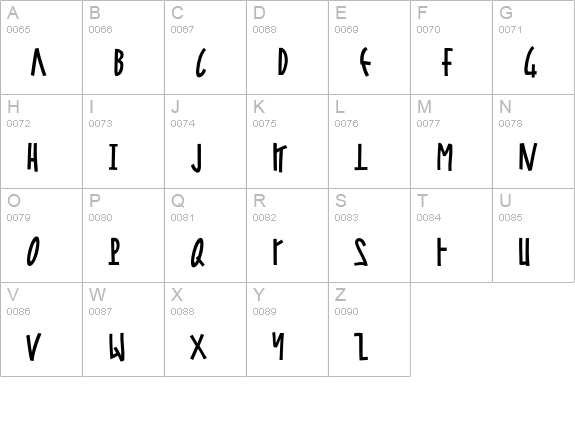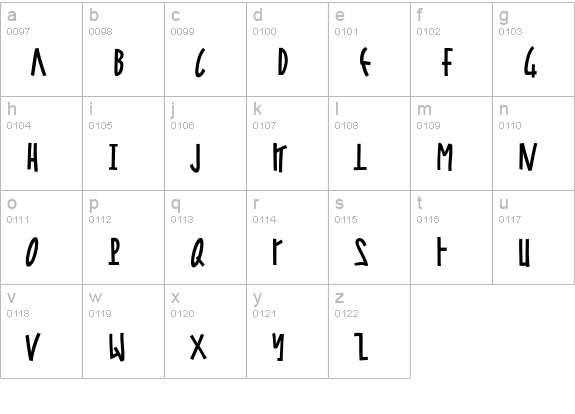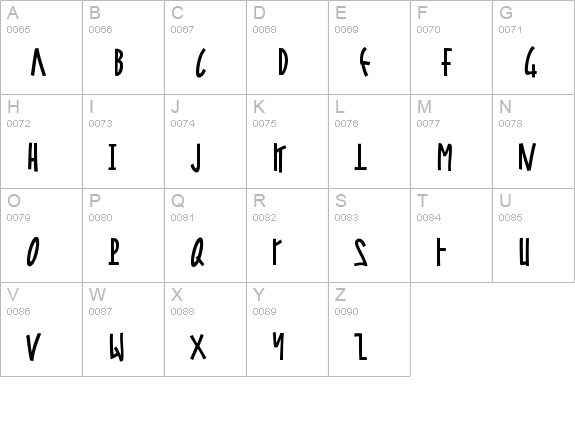
Introducing Steel-Jones, a captivating and versatile font that exudes strength and elegance. With its sleek lines and sharp edges, this typeface is perfect for adding a touch of modern sophistication to any design project. Whether you're creating a bold logo, designing a stylish website, or crafting eye-catching headlines, Steel-Jones delivers a powerful impact that demands attention. Its balanced letterforms and distinctive character set make it a timeless choice for both print and digital applications. But what sets Steel-Jones apart from the rest? Not only does it embody the essence of contemporary design, but it also offers the incredible advantage of being free. Yes, you heard it right! Steel-Jones is freely available to download at FontsMarket.com, allowing designers and enthusiasts alike to access this remarkable font without any cost. So why wait? Unleash your creativity and explore the limitless possibilities that Steel-Jones offers. Embrace its bold nature and elevate your designs to new heights. Whether you're a professional designer or someone with a passion for typography, Steel-Jones will undoubtedly make a lasting impression. Download Steel-Jones today from FontsMarket.com and experience the beauty, power, and versatility of this exceptional font. Enhance your projects, captivate your audience, and elevate your designs with the stunning strength of Steel-Jones.